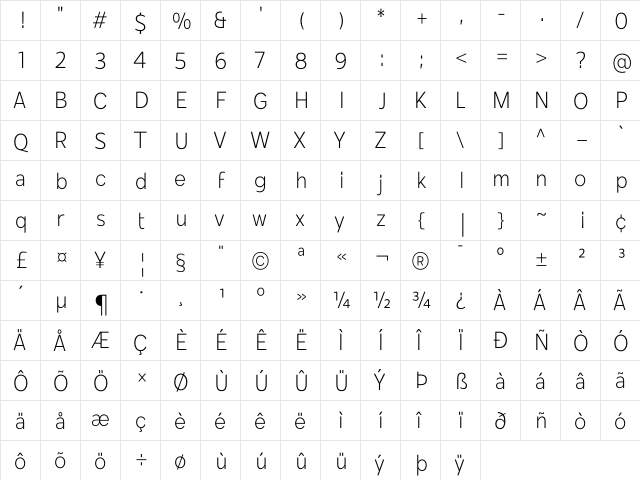
Mollen Personal Use Lt Nr Regular
| Designer | Eko Bimantara |
Design Context for Mollen Personal Use Lt Nr Typeface
Mollen Personal Use Lt Nr is a composed and adaptable typeface that performs quietly and consistently across a wide range of design contexts. Its slender proportions lend an understated elegance to any composition.